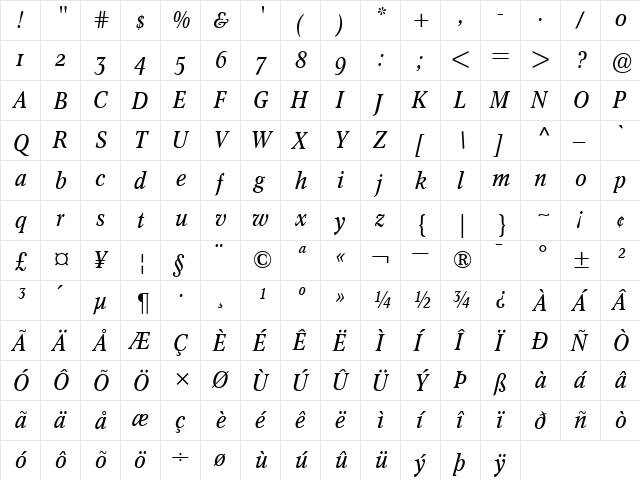
ConcordeNovawithOldstyleFigures RomanItalic
Design Context for ConcordeNovawithOldstyleFigures Typeface
ConcordeNovawithOldstyleFigures brings classic typographic sensibility to the table — its serifs and measured letterforms reflect centuries of print heritage. The dynamic lean of this cut emphasises speed and emphasis in any layout.
Pro Tip: Use ConcordeNovawithOldstyleFigures for editorial body copy and considered headline work. Pair with a neutral sans for UI elements or captions to create a classic hierarchy.